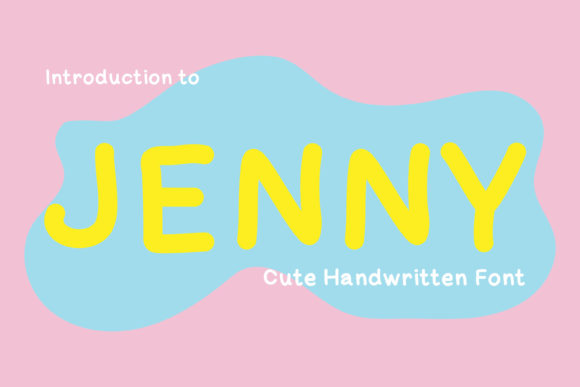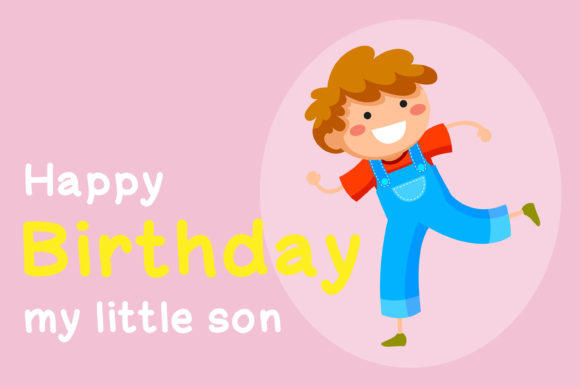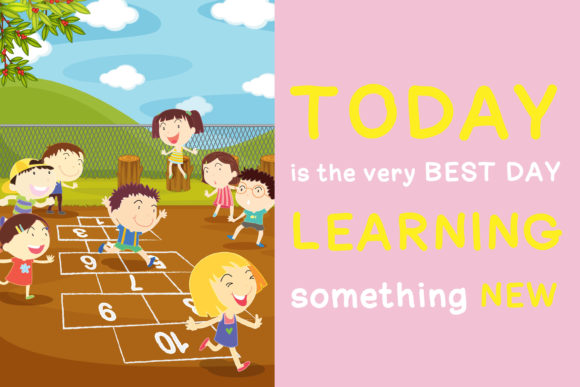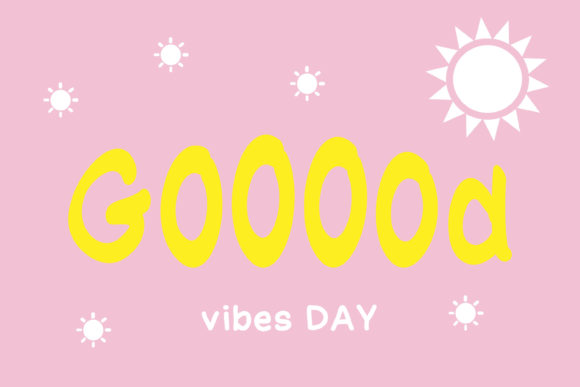
About Jenny Font
Jenny is a cute, simple, and natural handwritten font that brings a touch of beauty to your designs. With its versatile style, this font is a great choice for various creative projects, including cartoon-related designs, children’s games, quotes, titles, brand names, book covers, posters, and more.
The adorable and organic letterforms of Jenny bring a sense of playfulness and natural charm to your designs. Whether you’re working on designs for cartoons, creating engaging children’s games, designing inspirational quotes, crafting captivating titles, developing unique brand names, designing eye-catching book covers, or creating visually striking posters, this font will enhance your creations and make them stand out.
Jenny’s cute, simple, and natural style makes it suitable for a wide range of applications. It can add a whimsical and childlike touch to cartoon-related designs, making them visually appealing and capturing the imagination of the target audience. It brings a sense of fun and joy to children’s games, creating an enjoyable and interactive experience. It enhances the impact of quotes, titles, and brand names, making them visually appealing and memorable. And it adds a touch of creativity and charm to book covers and posters, grabbing attention and inviting viewers to explore further.
Embrace the cute, simple, and natural qualities of Jenny and let it inspire your creative projects. Incorporate this font into your designs, and you’ll see how it adds a touch of beauty and playfulness that resonates with your audience.